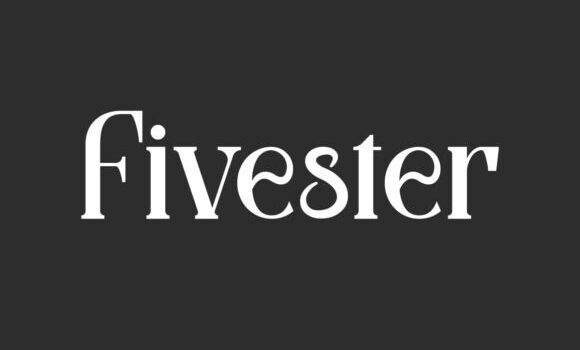
fivester
Fivester Font – Free Download Introduction to Fivester Font is a stunning, elegant serif display font with mysterious vibes. 📸 Preview Gallery 6 images 📌 Product Name Fivester Font 👤 Author vintype 📂 Category Explore ⬇️ Download Fivester